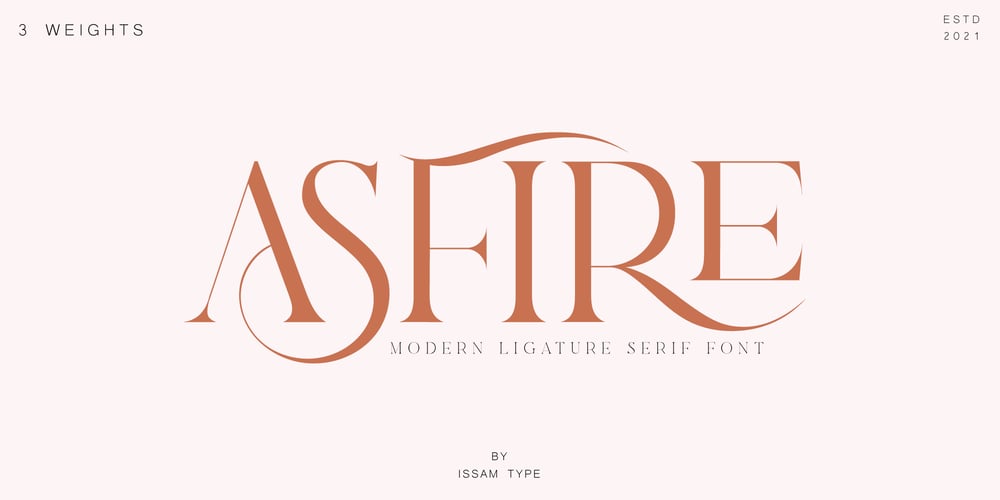
Asfire Font Family was designed by Issam Boufelja and published by Issam Type. Asfire contains 4 styles and family package options. Asfire is an All Caps modern ligature serif typeface comes with joining ligatures that give it a fancy and unique style. This font perfect for branding, Headlines, logos, invitation, watermark and more.Asfire typeface comes with regular, bold and condensed font styles. Uppercase letters, numbers, punctuation, ligatures, alternatesMultilingual support.If you have any questions, please feel free to get in touch.Thank you